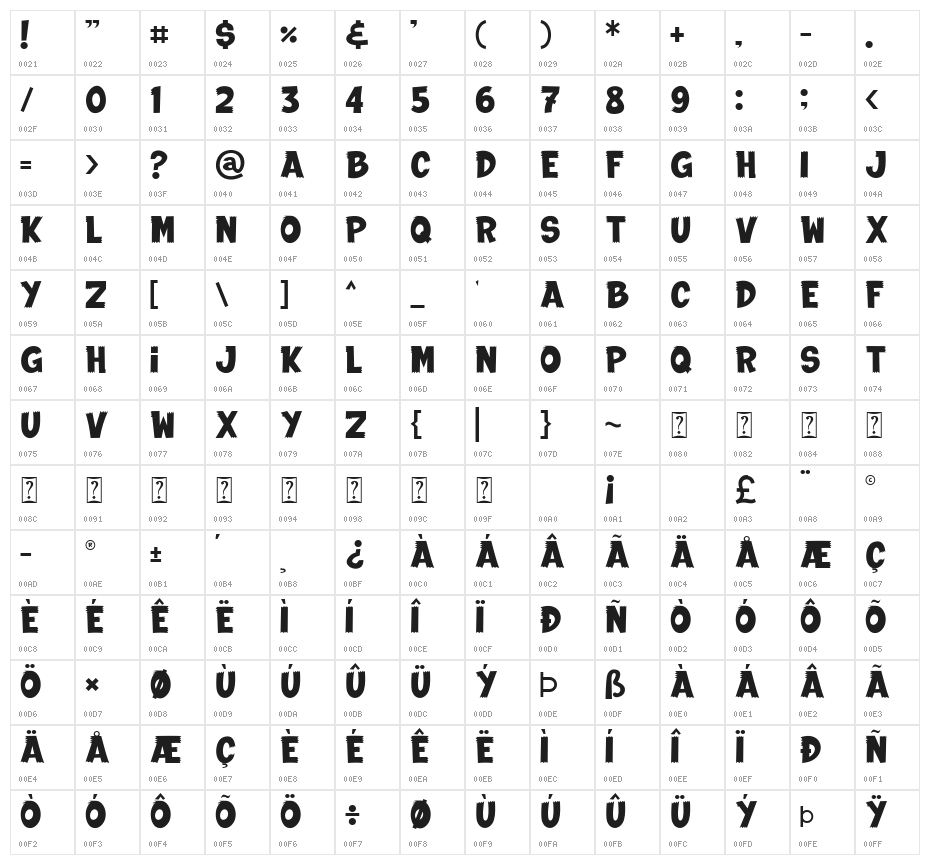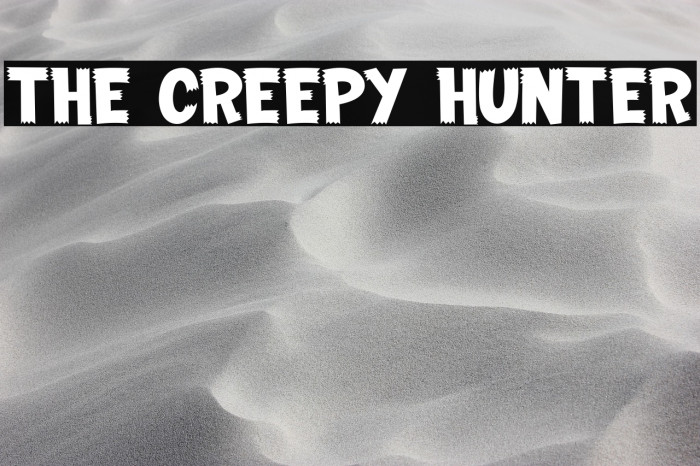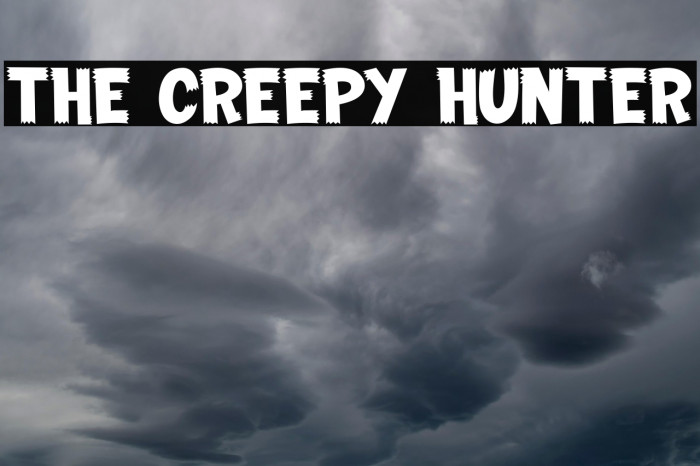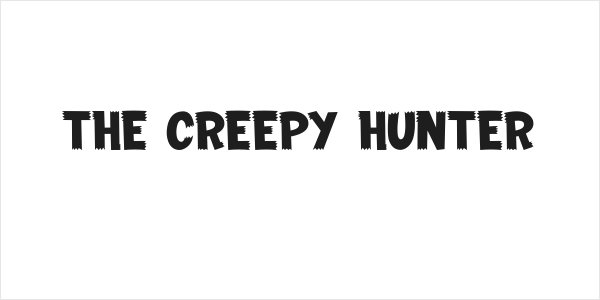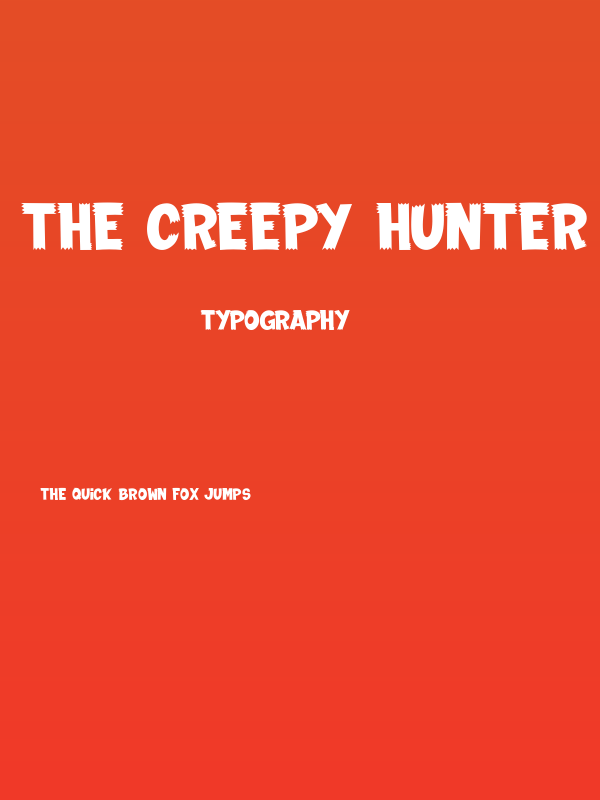
THE CREEPY HUNTER Font
THE CREEPY HUNTER Description
This font features a bold and jagged style, reminiscent of horror or thriller themes. The characters have a rough, uneven edge that gives them a dynamic and unsettling appearance. The uppercase letters are particularly striking, with exaggerated angles and sharp points that create a sense of movement and intensity. The numbers and special characters maintain this edgy aesthetic, ensuring consistency across all glyphs. This font is designed to capture attention and evoke a sense of mystery or fear, making it ideal for projects that require a dramatic and impactful visual element.
| Use Case | Headlines, Posters, Logos |
| Proposed Projects | Ideal for horror movie posters, Halloween event flyers, spooky-themed merchandise, or any project needing a dramatic and eerie typeface. |